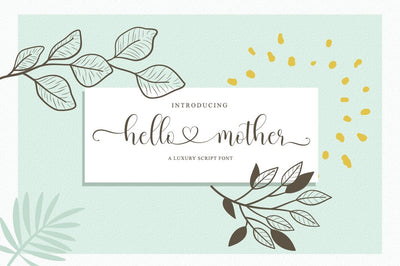
hello mother - a luxury script font
The "hello mother" is a stylish feminine font. It includes amazing swashes which will add a feminine touch to your designs.
80 Swashes